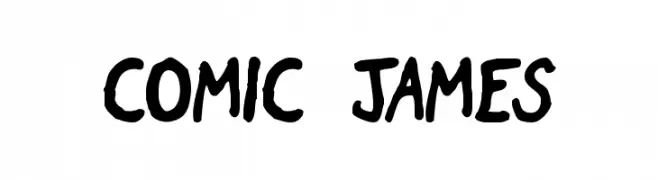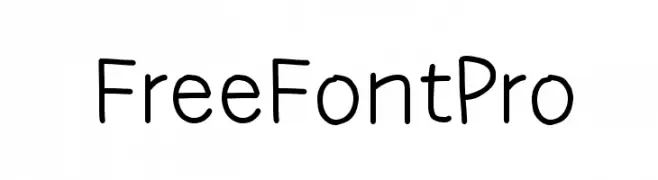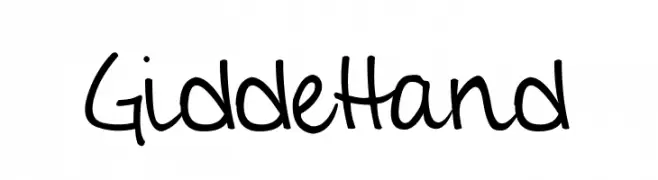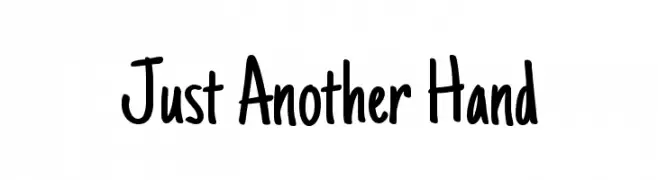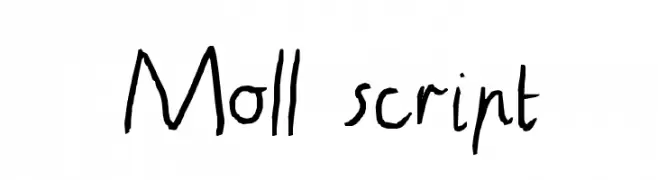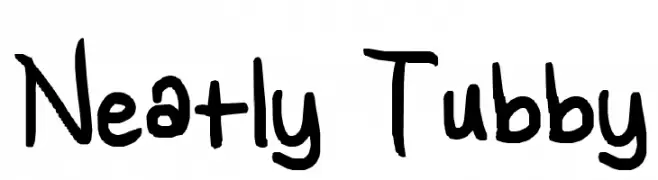
A playful, hand-drawn font with a casual and whimsical style.
A bold, handwritten font with a playful and casual style.
A playful, casual handwritten font with smooth, flowing lines.
A casual, handwritten font with bold, consistent strokes and a playful appearance.
A playful, handwritten font with a casual and whimsical style.
A playful, handwritten font with smooth curves and a casual style.
A minimalist, hand-drawn font with thin, uneven strokes and a casual, informal style.
A playful, handwritten font with thin, uneven strokes and a casual style.
A playful, handwritten font with a casual and whimsical style.
A playful, handwritten font with tall, narrow letters and a casual style.
A playful, handwritten font with rounded, casual letterforms.
A playful, handwritten font with a quirky and casual style.
A playful, handwritten font with a casual and friendly appearance.
A playful handwritten font with rounded, consistent strokes and a casual vibe.
A playful, handwritten font with rounded edges and a casual style.
A playful, casual handwritten font with smooth, rounded edges.
A playful, hand-drawn font with rounded, consistent strokes and a casual style.
A playful, handwritten font with a friendly and casual style.
A bold, playful handwritten font with a casual, marker-like style.
A playful, handwritten-style font with smooth curves and a casual vibe.
A casual, handwritten-style font with a playful and informal appearance.
A playful, handwritten font with a casual and creative style.
A playful handwritten font with a casual and friendly style.
A playful, handwritten font with tall, narrow characters and a casual style.